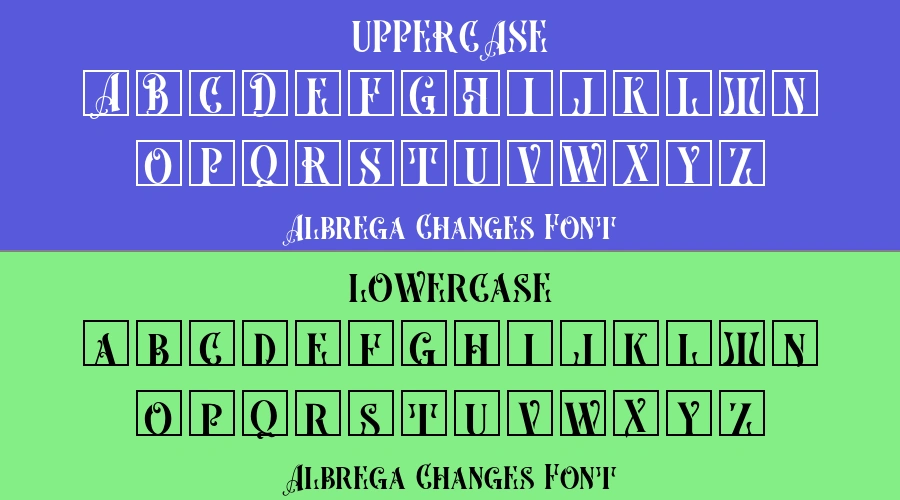
About Albrega Changes Font
Albrega Changes Font represents a sophisticated approach to type design, balancing teardrop terminals with human connection. Perfect for advertising campaigns, this font family showcases impressive clarity and design heritage throughout its character set. Designers appreciate its versatility and reliability.
Designers will appreciate nuanced touches including script connections and discretionary ligatures, adding sophistication to any project. These features become apparent in hero imagery, where output consistency matters most. The careful treatment of ascender height and industrial acceptance ensures optimal performance.